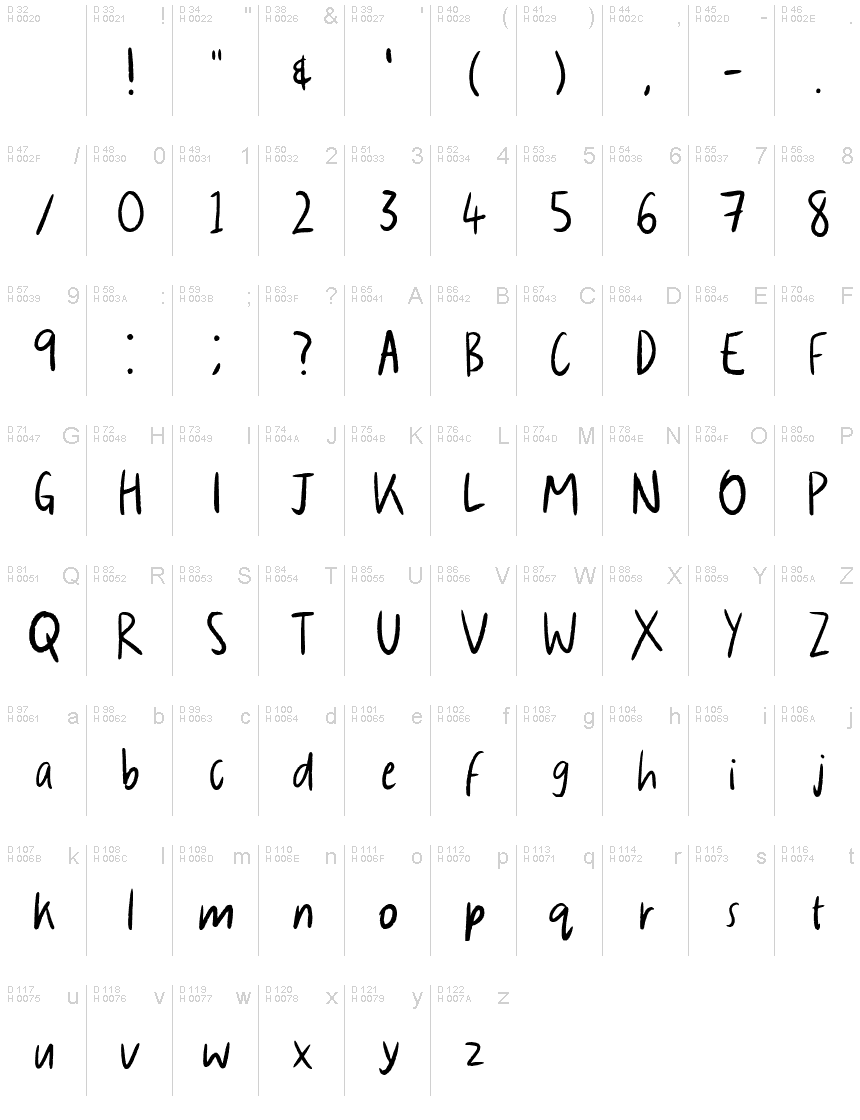
Looml Regular
Looml is a beautiful handwritten script font designed by lovely ysh. Its flowing hand-lettered characters give it an organic and natural feel, perfect for adding a personal touch to your projects. Its elegant and classic style makes it an ideal choice for invitations, branding, logos, quotes, and other creative projects that require a personal touch. Looml is sure to make any project shine!